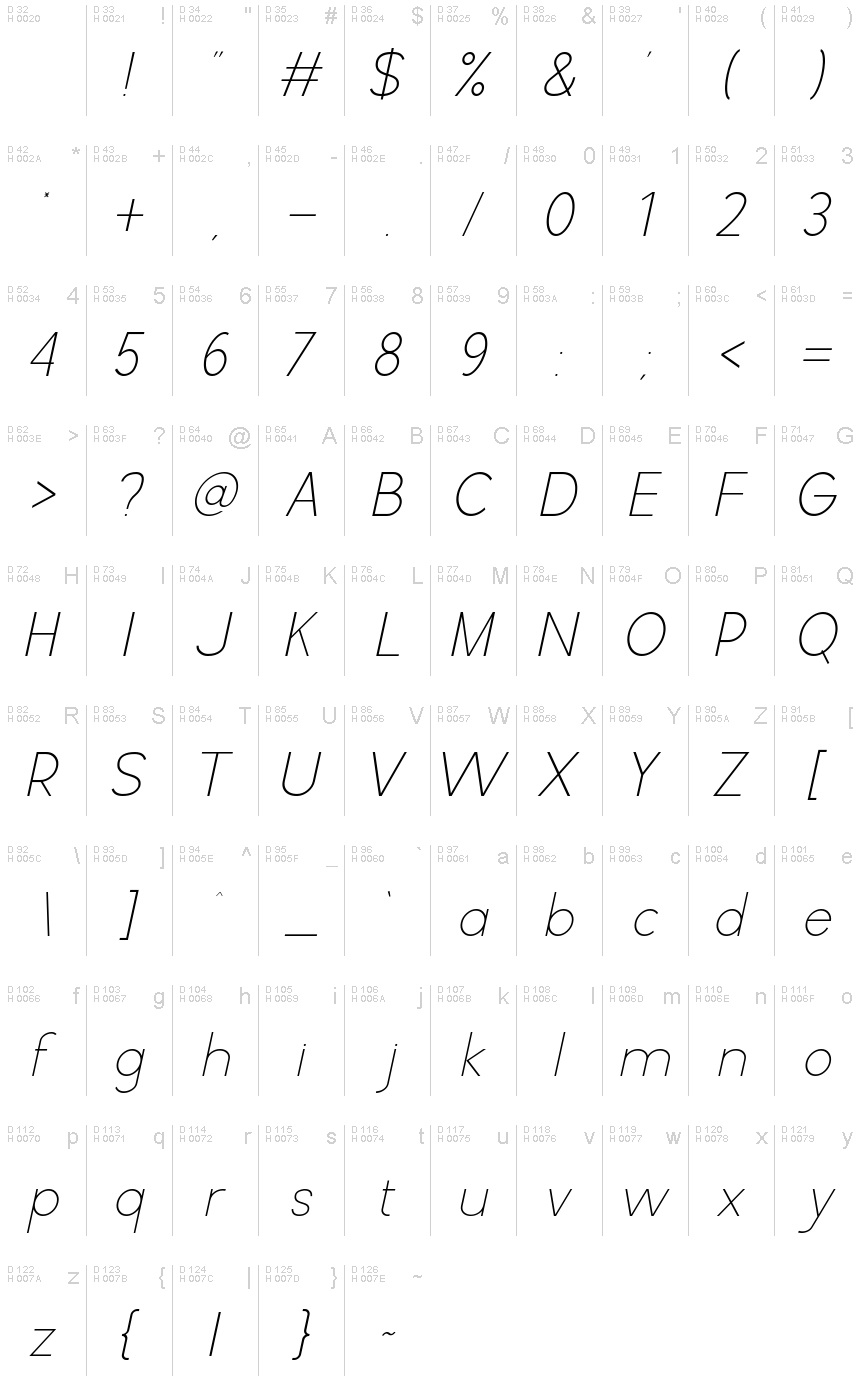
Sweet Bread Light Italic
The Sweet Bread Light Italic font by Rvandtype exudes a graceful and sophisticated charm. Its delicate, sans-serif lines and subtle italicized strokes create a visually captivating aesthetic, evoking a sense of elegance and refinement. The font's light weight and flowing curves lend a delicate, yet confident, personality, making it a compelling choice for a variety of design projects.
Sweet Bread Light Italic's versatility shines through its ability to adapt to various applications, from high-end editorial layouts to elegant branding and packaging designs. Its refined yet approachable nature makes it a suitable option for projects that require a balance of sophistication and accessibility, such as event invitations, personal stationery, or even select digital interfaces.